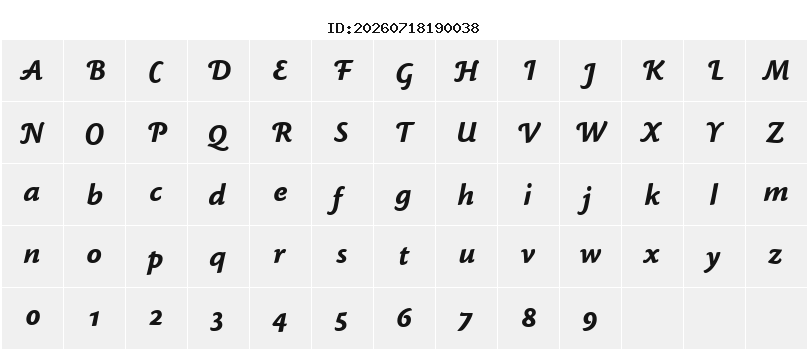
CronosMM Preview
• Font Name: CronosMM
• Font Style: Sw
• Full Font Name: CronosMM Sw
About CronosMM.ttf
CronosMM.ttf is a modern, elegant sans-serif font designed for ultimate readability and visual harmony. Perfect for branding, headlines, web design, and print materials.